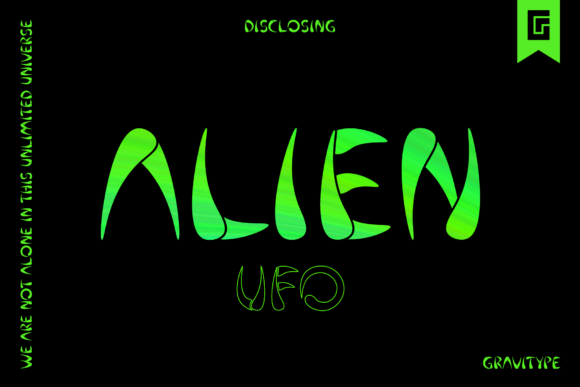
The Quest for the Perfect Font: Discovering Alien Ufo
I’ll never forget the design project that led me to discover the Alien Ufo font. I was working on a futuristic-themed website for a client who wanted something that screamed “out of this world.” I spent hours scouring font libraries, but nothing seemed quite right. That was until I stumbled upon Alien Ufo – a modern, sleek display font that instantly captured the essence of my client’s vision.
Alien Ufo: A First Impression
Alien Ufo is an incredibly cool and modern looking display font, perfect for adding a unique touch to your designs. Its PUA encoding makes it easy to access all glyphs and swashes, giving you endless creative possibilities. Whether you’re designing web pages, business cards, or any other visual project, Alien Ufo is an excellent choice.
• ✨ Unique and modern design: Alien Ufo’s futuristic look is perfect for projects that require a bold, otherworldly feel.
• ✅ Easy to use: PUA encoding makes it simple to access all glyphs and swashes, even for those without extensive design experience.
• 🔥 Highly versatile: Use it for web designs, business cards, posters, or any project that needs a touch of futurism.
• 🤔 Limited use in body text: Due to its bold and futuristic design, Alien Ufo might not be the best choice for lengthy body text. It’s ideal for headlines and titles.
The Designer Inspiration Behind Alien Ufo
While the actual designer of Alien Ufo remains unknown, it’s easy to imagine the inspiration behind such a font. Perhaps the designer was fascinated by science fiction and the endless possibilities of space exploration. They might have wanted to create a font that captures the essence of futurism and innovation.
Q: Is Alien Ufo suitable for body text?
A: Due to its bold design, Alien Ufo is best used for headlines and titles. For body text, consider a more readable font.
Q: Does Alien Ufo support OpenType features?
A: Yes, Alien Ufo is PUA encoded and supports OpenType features, including glyphs and stylistic alternates.